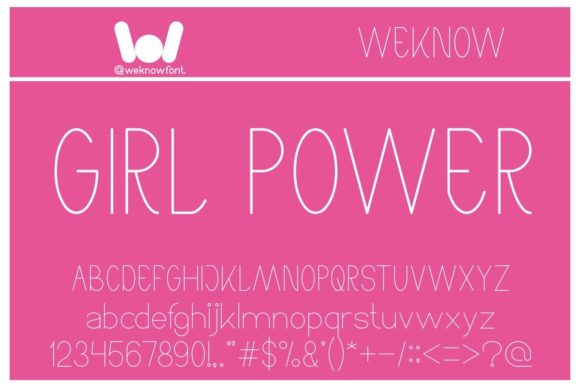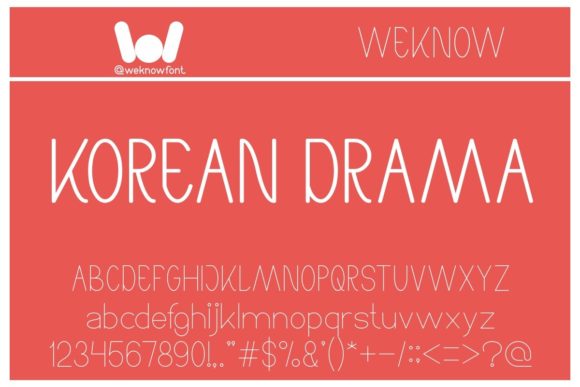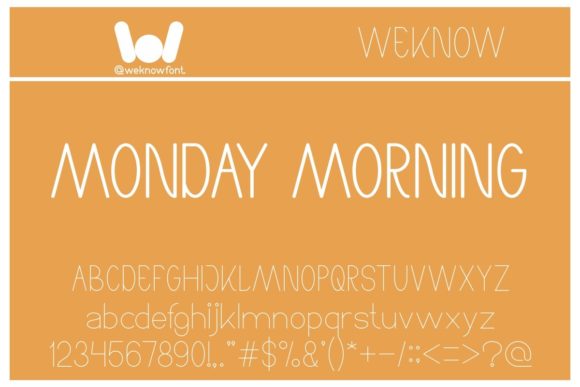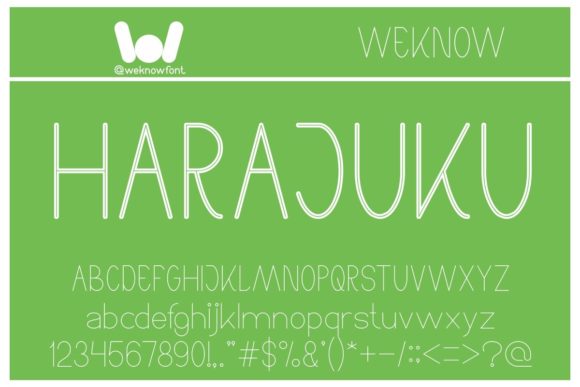
Introduction to High Thin Light Font
Have you ever been working on a creative project, pouring your heart and soul into it, only to feel like something’s missing? You’ve got the perfect design, the perfect color scheme, but the font just isn’t doing it justice? That’s where the High Thin Light Font comes in – a game-changing design resource that can elevate your work to the next level.
As a designer, you know how crucial the right font can be in making your project stand out. And with the High Thin Light Font, you can expect a high-quality, minimalist sans serif that’s perfect for a wide range of creative endeavors. From websites with transparent backgrounds to print materials, this font is versatile and adaptable, making it an invaluable addition to any design arsenal.
Key Features of High Thin Light Font
- High-resolution design, ideal for large-format printing and high-quality digital displays.
- Ultra-lightweight and minimalist design, perfect for creating a clean and modern aesthetic in various creative projects.
- High-quality font with detailed stroke work, ideal for use in logos, headings, and other design elements that require precision and sophistication.
Honest Review: High Thin Light Font
I recently stumbled upon the High Thin Light Font and was excited to put it to the test. As a designer, I’m always on the lookout for high-quality design resources that can elevate my creative projects. And let me tell you, this font delivers.
What works well: ✨ The font’s light and airy feel is perfect for designs that require a touch of sophistication and elegance. The transparent background makes it easy to layer and combine with other elements, giving me endless possibilities for creative expression. Plus, it’s completely free to download, making it a valuable addition to any designer’s toolkit.
- High-quality design that looks great at various sizes and resolutions
- Flexible and versatile, suitable for a wide range of creative projects
- Transparent background for easy layering and combination with other elements
Limitations: ⚠️ While the High Thin Light Font is a great addition to any designer’s collection, it may not be suitable for projects that require bold or dramatic typography. Additionally, some users may find the light feel of the font to be too subtle in certain contexts.
Overall impression: I’m thoroughly impressed with the High Thin Light Font and would highly recommend it to any designer looking to add some elegance and sophistication to their creative projects.
Tips for Getting the Most Out of High Thin Light Font
To get the most out of High Thin Light Font, experiment with different font sizes, colors, and combinations. This will help you unlock its full potential and create a unique design that stands out.
High Thin Light Font is commonly used in branding, packaging, and advertising materials. Its high-quality design and transparent background make it perfect for creating custom logos and graphics.